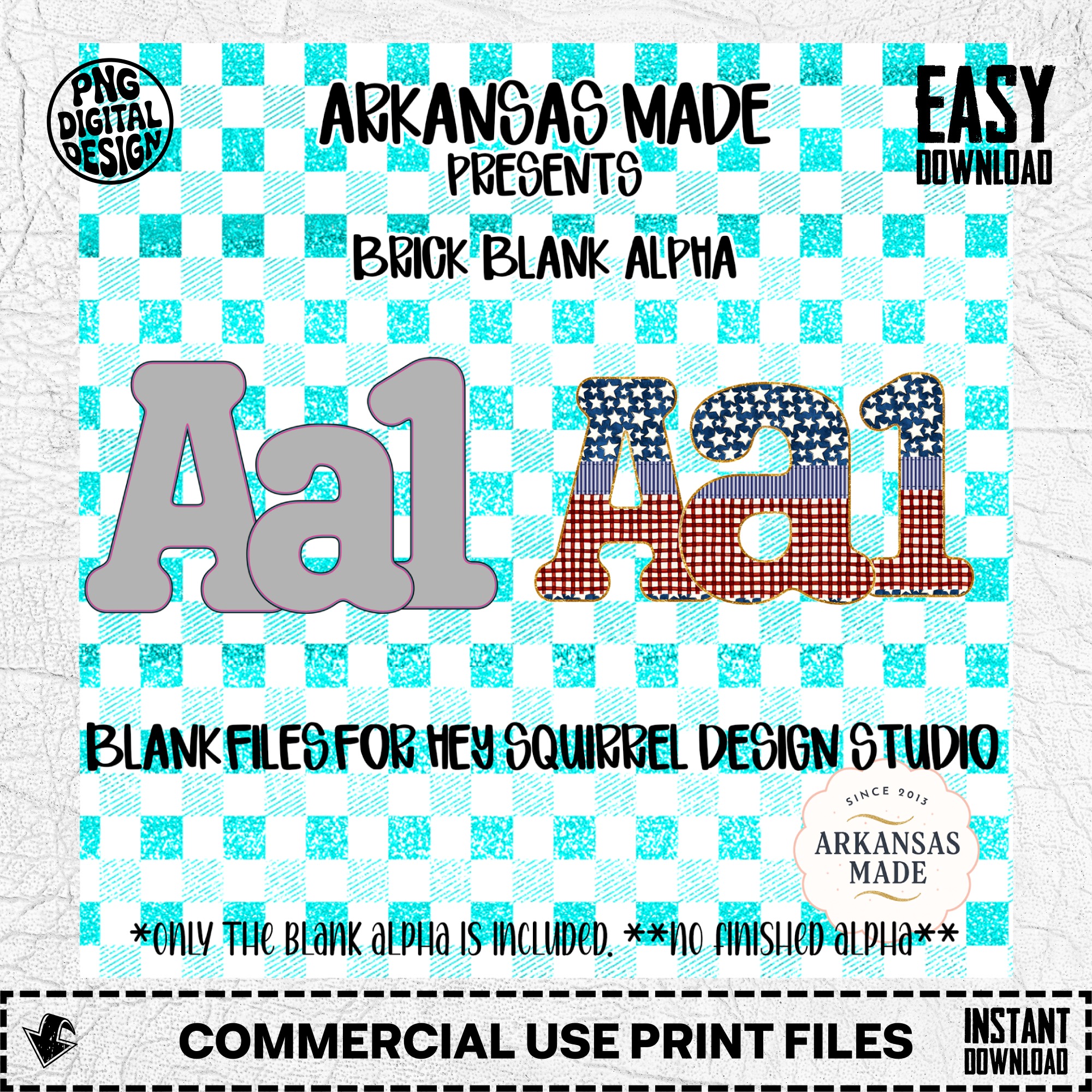
Brick Blank Alpha PNGs for Hey Squirrel Design Studio, Customizable Digital Letters, DIY Crafting Font, Instant Download Alphabet Pack
Unlock endless creativity with this Brick Blank Alpha PNG for Hey Squirrel Design Studio. Perfect for customizable digital crafting projects! This versatile blank alphabet set provides high-quality digital letters, ready for you to infuse with your unique patterns and textures. Ideal for graphic designers, DIY enthusiasts, and small business owners creating personalized sublimation designs, scrapbook pages, or any creative digital art. A thoughtful digital asset for any crafter or creative entrepreneur!